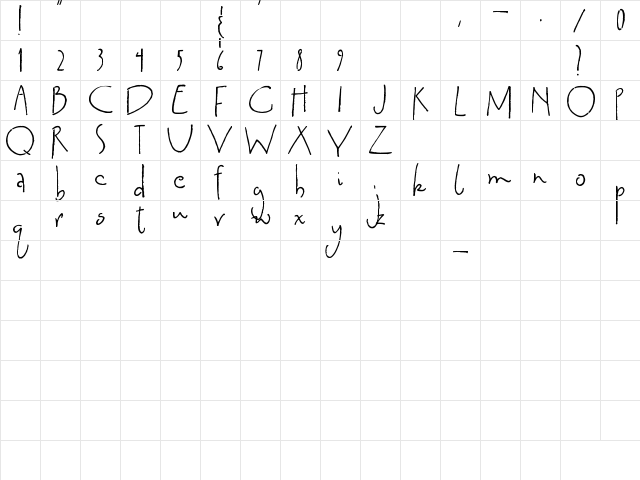
Smitten Kitten Regular
Design Context for Smitten Kitten Typeface
Smitten Kitten is a composed and adaptable typeface that performs quietly and consistently across a wide range of design contexts.